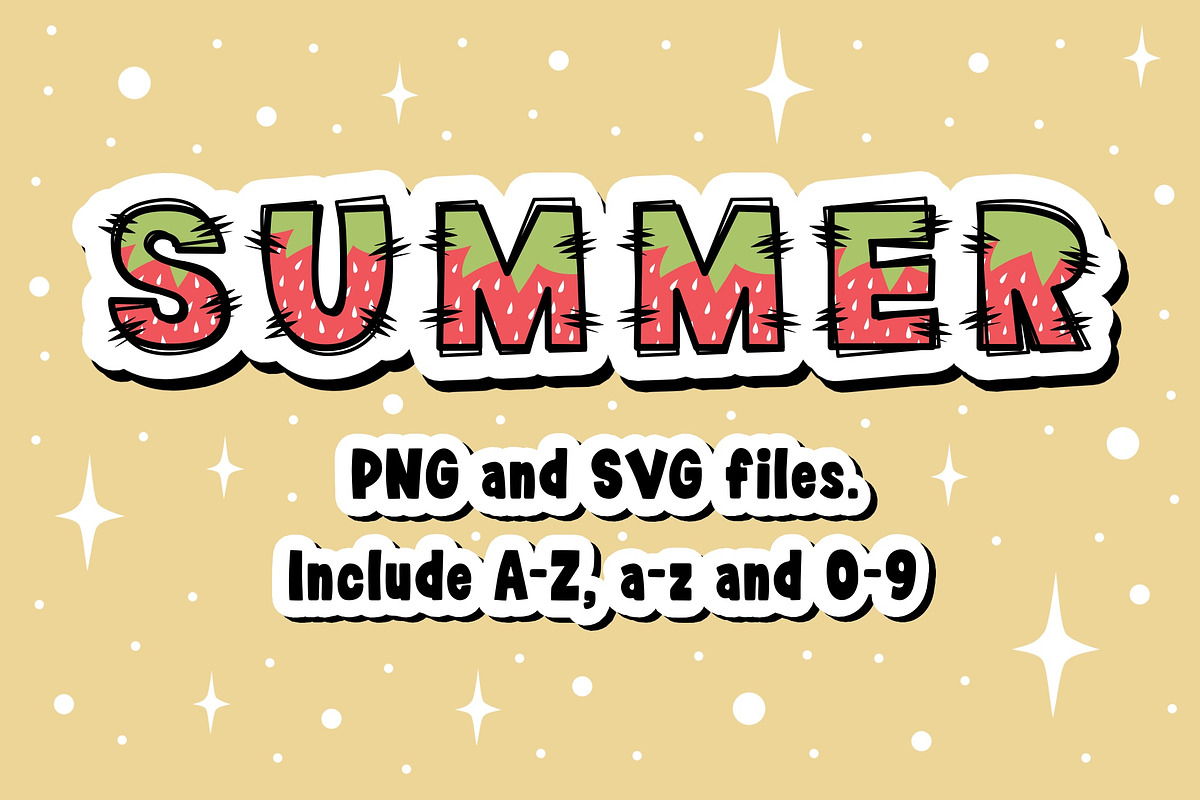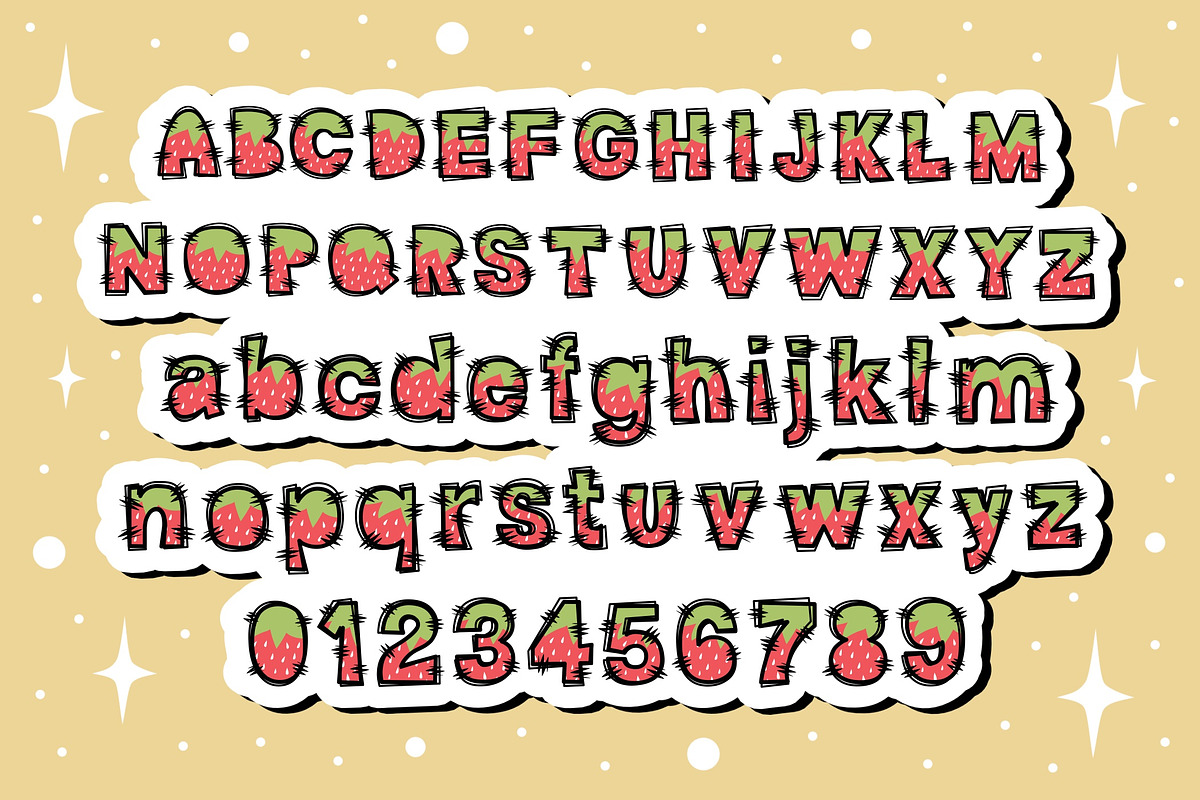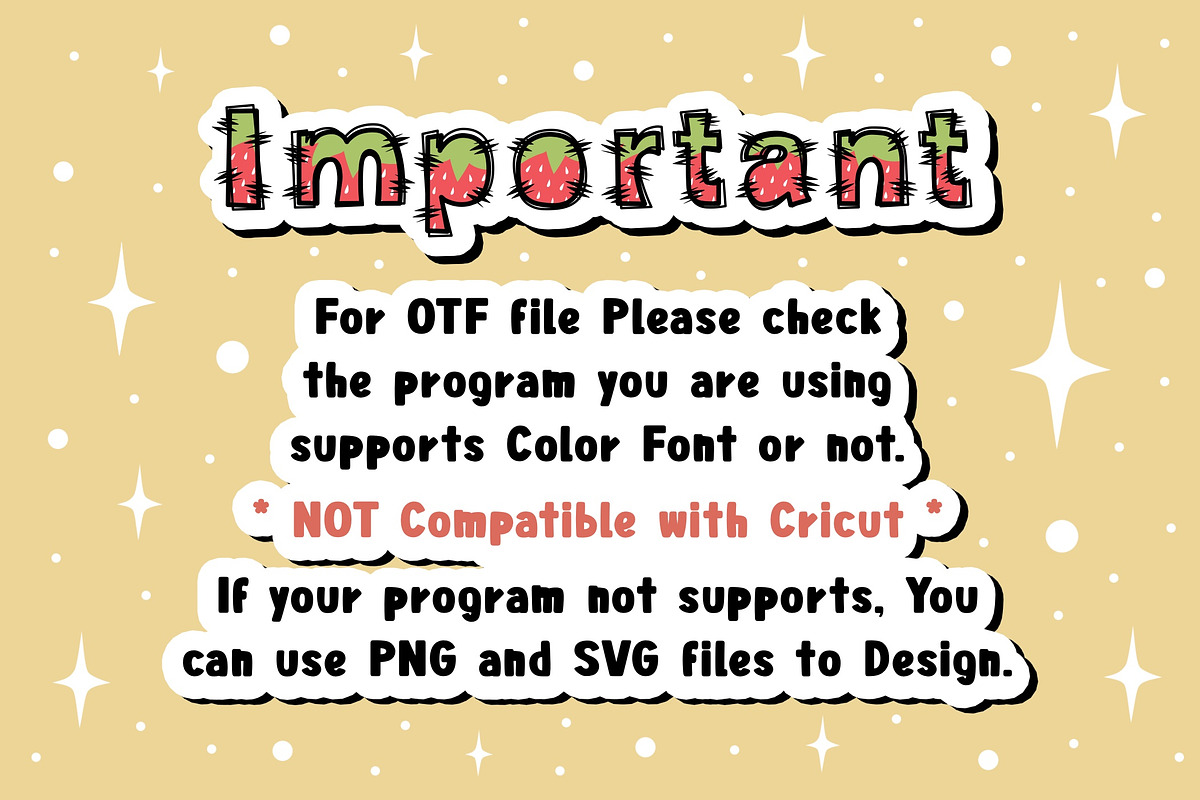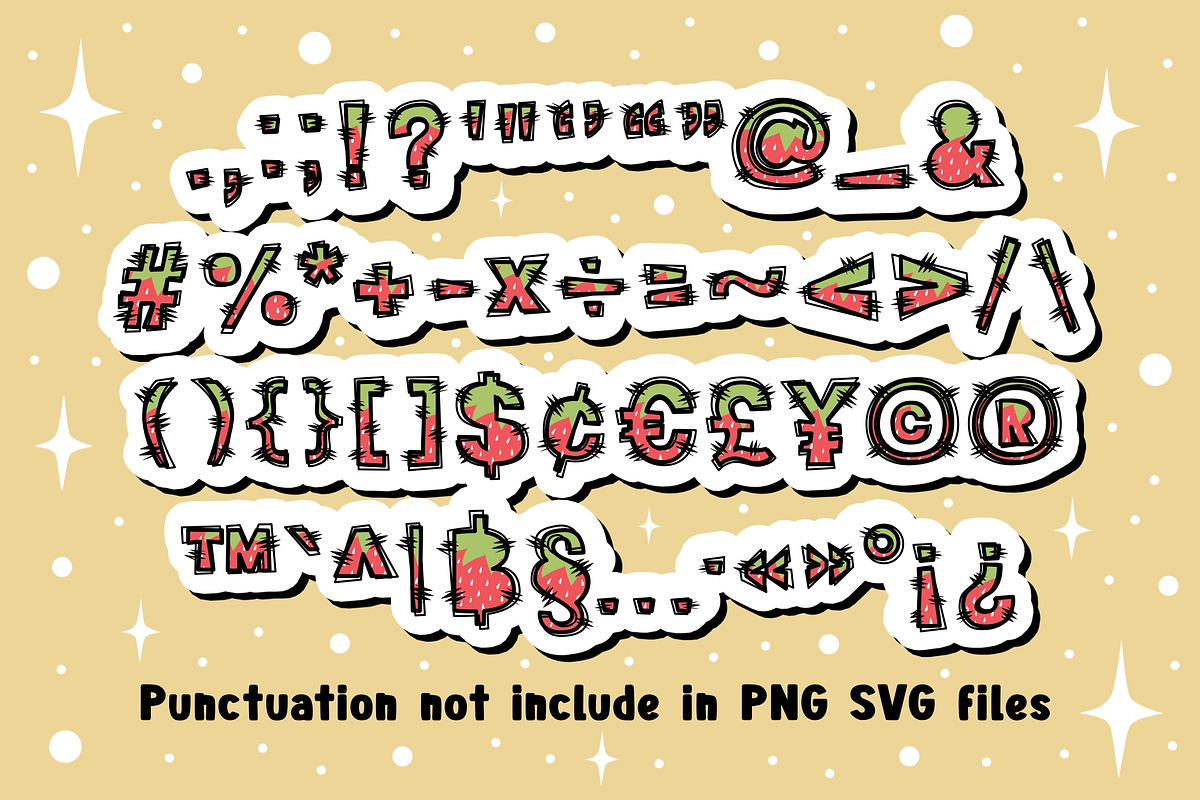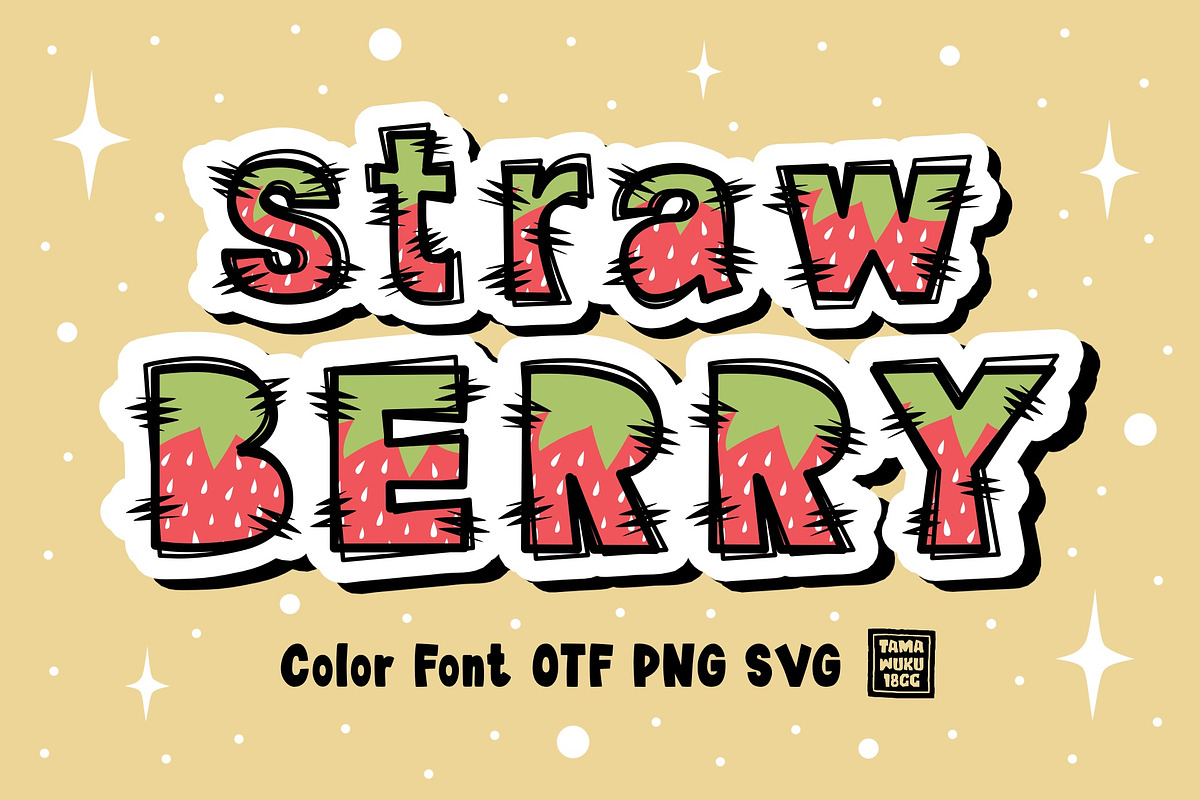
Strawberry OTF PNG SVG
Strawberry is a Cute Colorful Pattern Font in Fruit Summer Theme. This font is the perfect fit for all of your t-shirt, social media, crafty DIY projects, and much more!